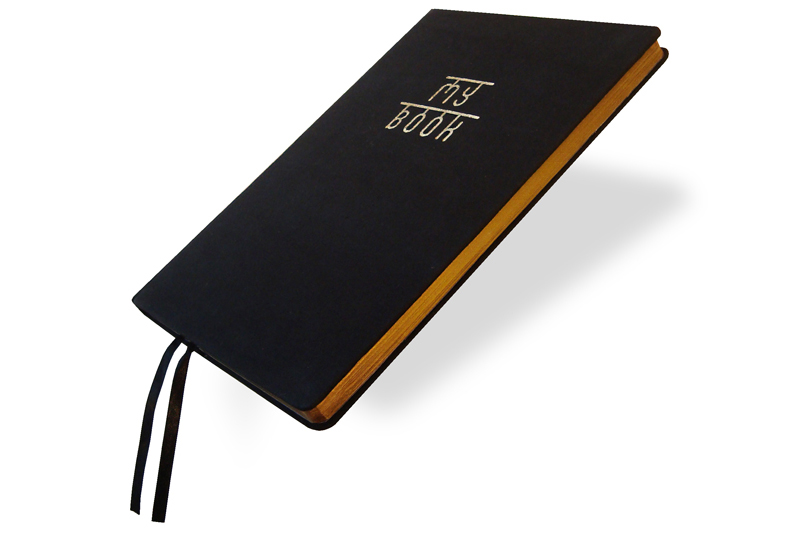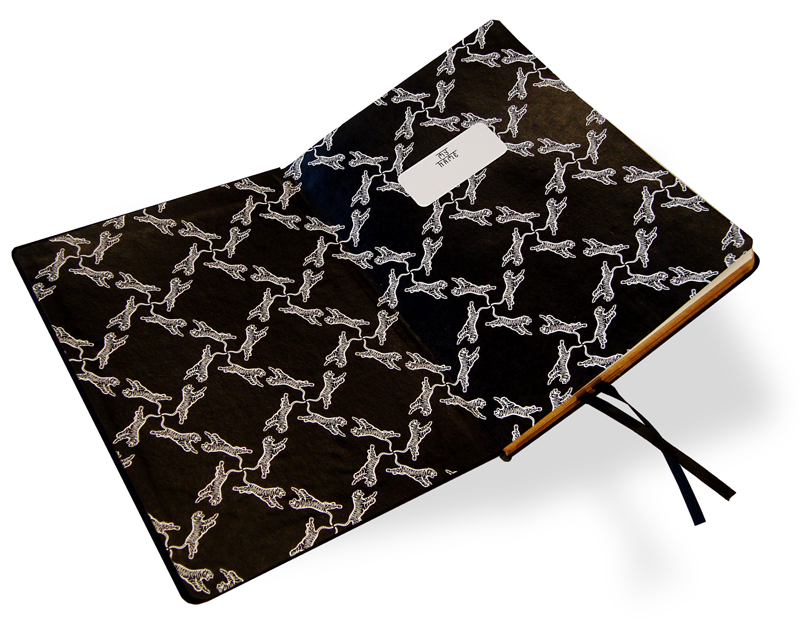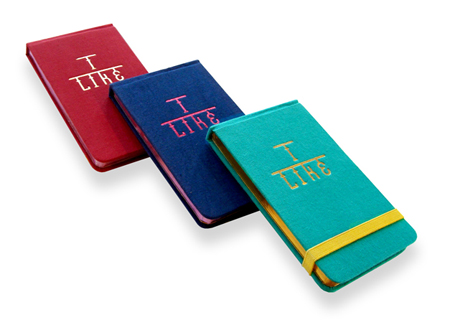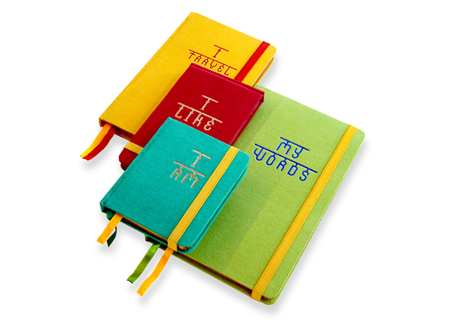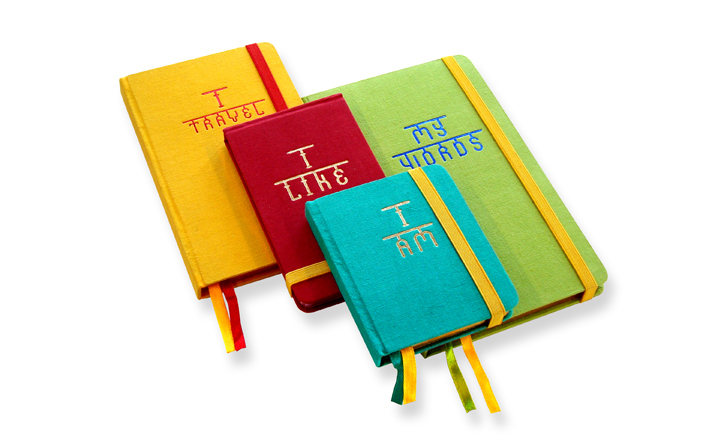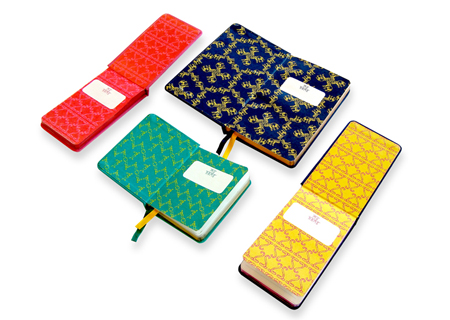
NT Rashmir was originally produced for the design of Rashmir Eco Notebooks in 2014.
Because all books are produced in India we wanted to give the typeface an Indian-flavored-third-world-feel.
Part of the design is, apart of this set of three typefaces, a color-code, a typographic logo and the design of the notebooks itself. We used this typeface for the design of shop-displays, advertisement and promotional activities for web and print.